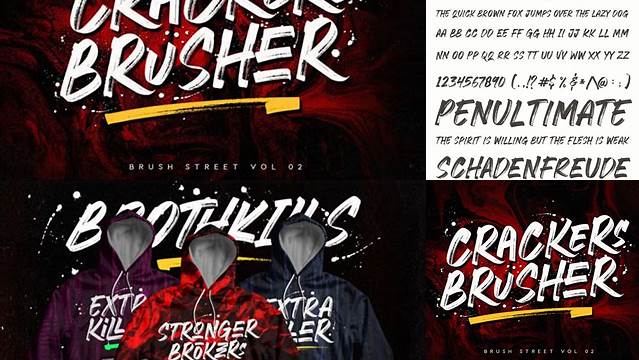
Hey guys! Ever stumbled upon a font that just clicks? Well, Crackers Brusher Regular might just be that font for you. It's got this cool, hand-drawn feel that can add a ton of personality to your projects. Whether you're designing a poster, crafting a logo, or just want to spice up your social media graphics, this font could be a game-changer. Let’s dive into everything you need to know about getting your hands on the Crackers Brusher Regular font for free, legally and safely!
What is Crackers Brusher Regular Font?
Crackers Brusher Regular is a font that mimics the look of hand-drawn brush lettering. It’s got that imperfect, edgy vibe that makes it stand out from more polished, traditional fonts. This font is perfect for projects where you want to convey authenticity, creativity, and a personal touch. Think about using it for things like event posters, blog headers, or even merchandise designs. The Crackers Brusher Regular font style adds a unique flavor that can really capture attention and make your work pop. Plus, its versatility means you can use it in a wide range of design contexts, from playful and informal to slightly more serious and sophisticated. Imagine using it on a t-shirt design or a coffee mug – it's got that cool factor that people love!
Why Choose Crackers Brusher Regular?
So, why should you pick Crackers Brusher Regular over the sea of other fonts out there? Well, its distinct hand-drawn style gives it a unique edge. It's not your typical clean and corporate font; it’s got character! This font excels in situations where you need to add a personal, artistic touch. Think about using it for branding a small business that wants to project a friendly, approachable image. Or, maybe you’re working on a project that needs to feel a bit raw and authentic. Crackers Brusher Regular font can really bring that vibe to life. Plus, it’s a great way to make your designs stand out and grab attention. In a world where so much design looks the same, using a font like this can help you create something truly memorable.
Using Crackers Brusher Regular in Design Projects
Okay, so you’ve got Crackers Brusher Regular installed and ready to go. Now comes the fun part: actually using it in your design projects! This font is super versatile, but it really shines when used in headings, logos, and other display elements. Think about using it to create eye-catching social media graphics, posters, or even website banners. Experiment with different sizes, colors, and letter spacing to see what looks best. You can also combine Crackers Brusher Regular with other fonts to create interesting visual contrasts. For example, try pairing it with a clean, sans-serif font for a modern and balanced look. Let your creativity flow and see what amazing things you can create with Crackers Brusher Regular font. This font brings a unique touch to any design.
Tips for Pairing Crackers Brusher Regular with Other Fonts
Pairing fonts can be tricky, but when done right, it can really elevate your designs. When pairing Crackers Brusher Regular, look for fonts that complement its hand-drawn style without overpowering it. A clean, simple sans-serif font like Open Sans or Lato can be a great choice for body text, as it provides a nice contrast to the more expressive Crackers Brusher Regular. You can also try pairing it with a classic serif font like Garamond or Times New Roman for a more traditional look. The key is to experiment and see what looks best in your particular design. Don't be afraid to try different combinations until you find something that feels just right. Crackers Brusher Regular font pairs well with many styles, offering flexibility in your designs. This font is a versatile addition to your toolkit.
Crackers Brusher Regular for Logos and Branding
If you're looking to create a logo or branding materials with a personal, artistic touch, Crackers Brusher Regular can be an excellent choice. Its hand-drawn style can help your brand stand out from the crowd and convey a sense of authenticity and creativity. When using it in a logo, make sure to keep the design simple and easy to read. You might also want to consider using it in combination with a symbol or icon that represents your brand. For branding materials like business cards and letterheads, use Crackers Brusher Regular sparingly, as too much of it can be overwhelming. A little bit can go a long way in adding a unique and memorable touch to your brand. Using Crackers Brusher Regular font in branding can create a memorable and unique identity. This font adds a personal touch to your brand.
Crackers Brusher Regular in Social Media Graphics
Social media is all about grabbing attention, and Crackers Brusher Regular can help you do just that. Use it in your social media graphics to create eye-catching headlines, captions, and calls to action. Its hand-drawn style is perfect for creating a sense of fun and informality, which can help you connect with your audience on a more personal level. Experiment with different colors and backgrounds to see what makes your graphics stand out. You can also use it to create quote graphics, which are always popular on social media. Remember to keep your text concise and easy to read, as people tend to scroll quickly through their feeds. The Crackers Brusher Regular font is perfect for making social media graphics pop. This font helps you grab attention online.